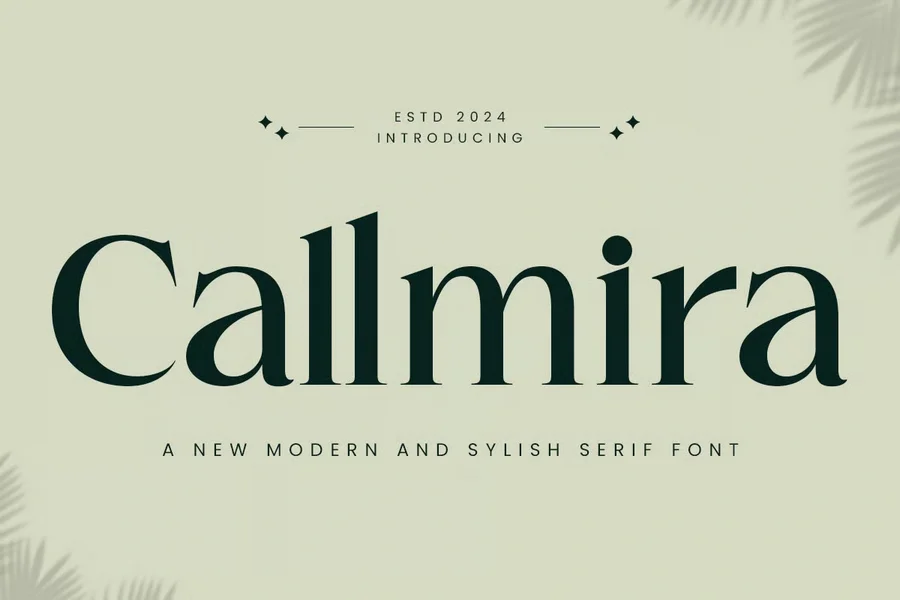
Callmira — Minimal Modern Serif Font
Callmira is a modern serif typeface that blends stylish curves with clean structure — giving your work a polished and professional touch. Designed with versatility in mind, it works beautifully for logos, branding, headlines, editorial layouts, and more. Whether you’re crafting a luxury brand, designing an elegant website, or building a timeless visual identity, Callmira adds a fresh but classic tone that feels just right.
Great for upscale branding, publishing, and visual design systems Callmira helps you create with confidence — refined, readable, and undeniably elegant.